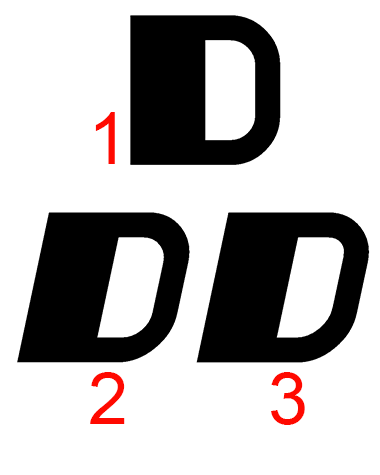
Yeah! This is cool.
You're great at playful type :)
Beautiful. You get an incredible sense of mixing unique, special feeling with simple, direct impact which i'm unable of and always makes my work for only a very few potential fellows to grasp and receive, if any.
Awesome!
Wow, very nice! I once attempted something like this, but it miserably failed. Like AFT, you are better at using FS than me :)
@winty5: Thanks. But you shouldn't forget that fontstructor is a software, and like wih any software, the more you play with it, the better you get, so, keep exploring! You're very young and have a whole life of opportunities ahead of you, so you can even consider a typographer's career ;)
cool
All the makings of a future classic. 10/10
@architaraz: Yup, I've been "exploring" for pretty long now :) I have considered a typographer's career too.
Simply (literally!) wonderful, a lot of the characters are completely ingenious. 10/10
Congratulations! FontStruct Staff have deemed your FontStruction worthy of special mention. “Katamaran” is now a Top Pick.
Thanks everybody for the comments and TP! The intention was to create smth simple, and it's not the first time I've been accidentally creating these shapes, just had to figure out how to combine & turn them into a typeface.
Hi, everybody! I here have a question about obliques/italics. Let's say I want to create an oblique variant of "1" (see image below.) I apply "oblique" or "italic" effect through font editing software, and the result I get is just a slanted glyph ("2" in the image.). So I notice that the top-right of 2 is a bit thick, and the bottom-right is a bit thin.
So, after editing, I get a "3" with the same stroke weight on both mentioned earlier positions.
My question is: Can "3" be considered as a true oblique variant of "1"? And by oblique I don't mean italic.
As far as I know, an oblique variant is characterized by the fact that glyphs are simply slanted to one side. Italics, however, are a variant of the typeface in which every glyph is created in such a manner that it fits to the regular variant. So, yes, in your case this is an oblique variant, because you only made minor adjustments to the stroke thickness.
Many thanks, Laynecom! I've actually changed my last version, and you can preview the whole family on HelloFont now. Hopefully, it'll be available on MyFonts this week too. Here's the new oblique D:
Comment by kassymkulov 5th september 2013
You're welcome. But when i was at Myfont, 2 years ago, they said their contract was exclusive, and you couldn't sell or give your fonts anywhere else. I'm surprised you can be on both Hellofont and Myfont platforms. Thanks for letting me know Hellofont, Myfont was a really annoying difficult way to publish, i had to wait weeks for an approval or to add an update and send tons of emails for a simple request. And seeing now their site, it seems that they became so selective in the sense that really different, out of norm approaches have completeley disappeared, and that my work would not have a single chance now because it has become much standardized. I saw on the contrary many beautiful and refreshing approaches at Hellofont, some working like me on the frontier of Art and Typography. And the fact that you control all your factors and updates "LIVE" like in Fontstruct is ideal for me. Surely there is much more visibility on myfonts but during the 6 months i was in i could figure out that my fonts were a bit "too much" for the non artistic, exclusively type design public of myfonts... Your work is surely more more suited to it, because despite its personality, it stays true to type design fondamentals, what is not exactly the case in my out of norm approach...
Comment by Abneurone Fluid Types 5th september 2013
Thanks AFT. I was introduced to Hellofont when publishing first samples to Behance, they seem to contact everybody who's involved in typography in any way :) I would've ignored it if it wasn't for those stunning HANDMADE and VECTOR fonts they have there. Now, that's smth different and may become very popular in coming years.
Selling through MyFonts isn't exclusive, at least not anymore, you're allowed to sell through other retailers with a condition of the same price tag.
It' a beauty! Excellent work, compañero!